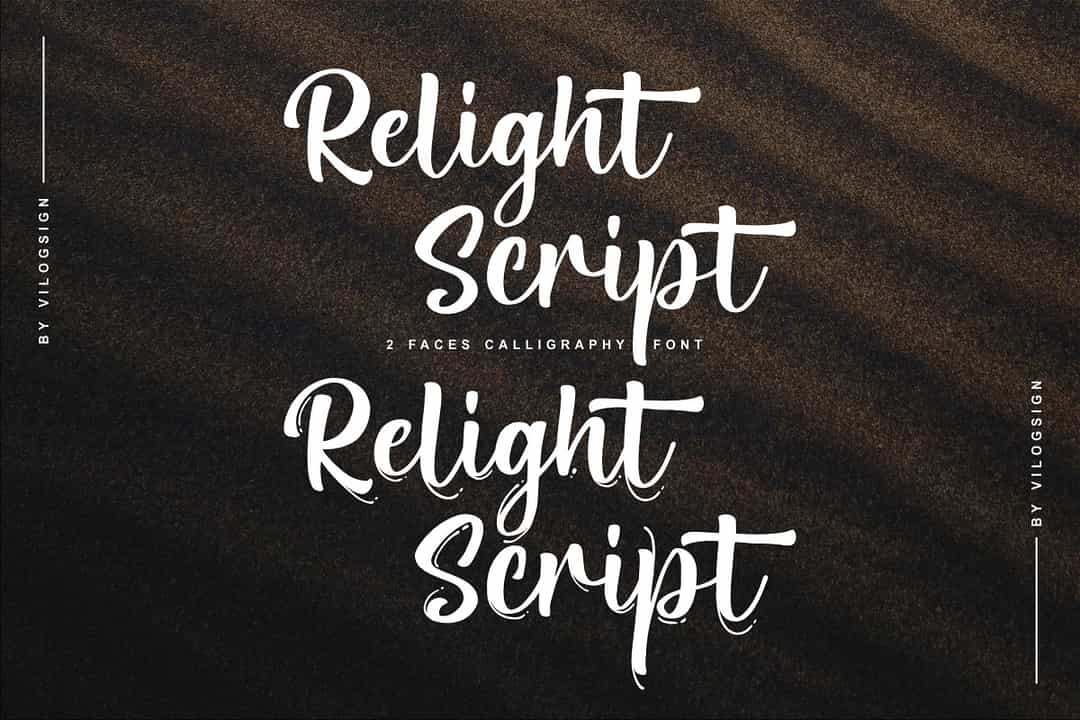
Relight is a delightful script typeface designed by Nur Kholis. Featuring an uninhibited style and relaxed character, Relight makes any type of work more attractive – making your font collection all the better for it.